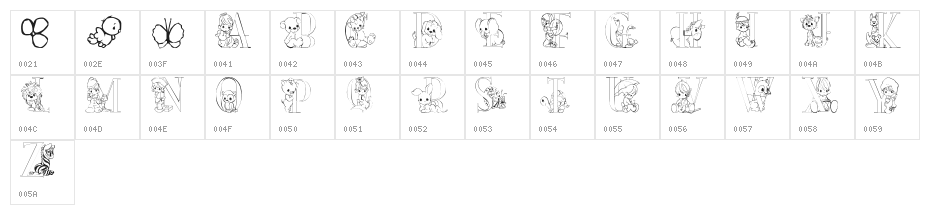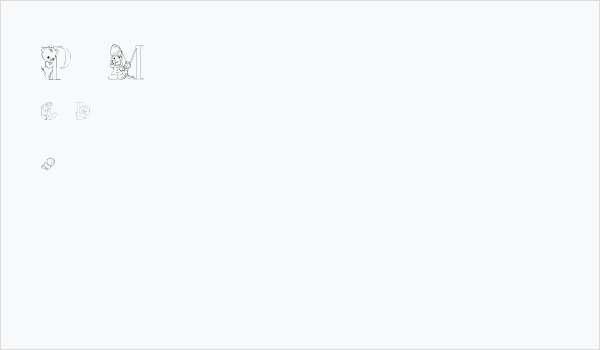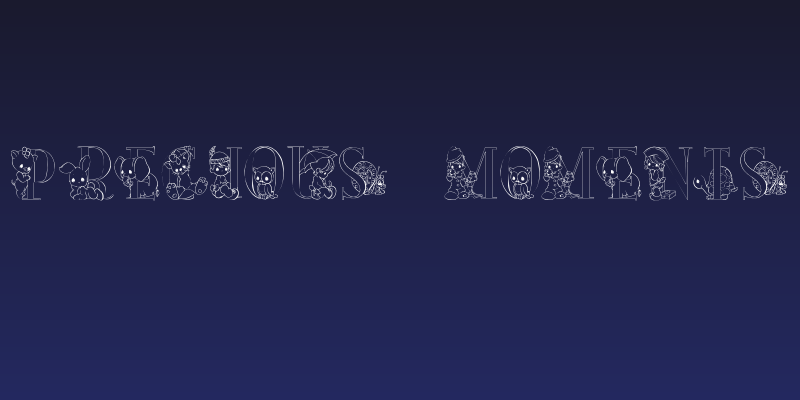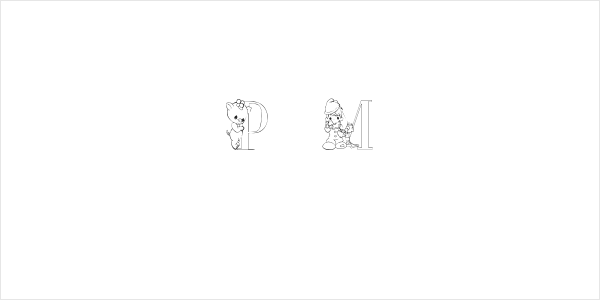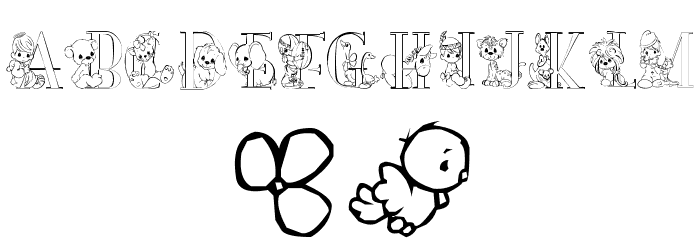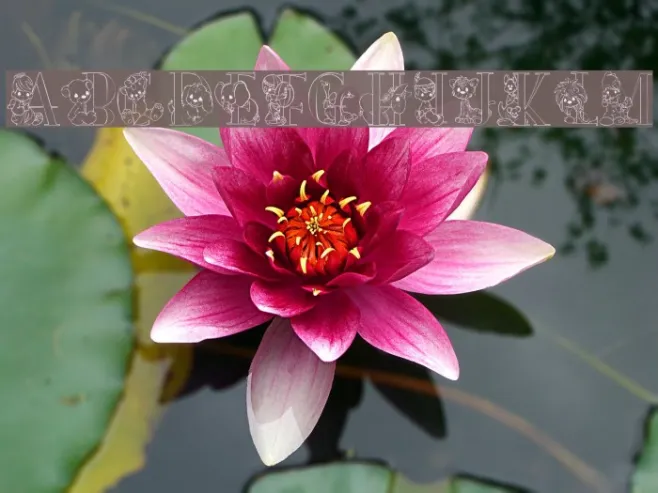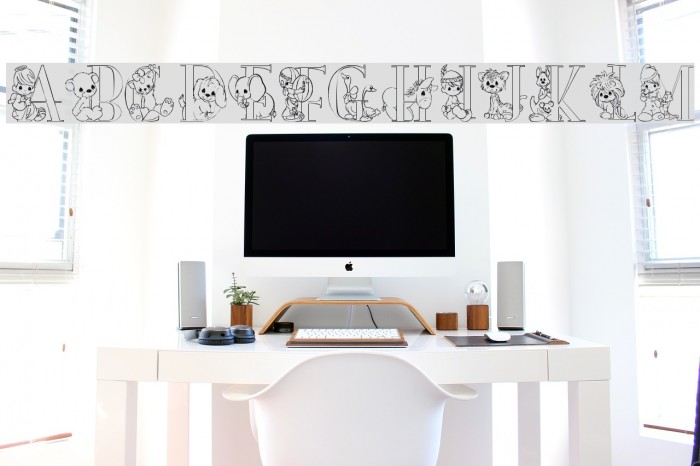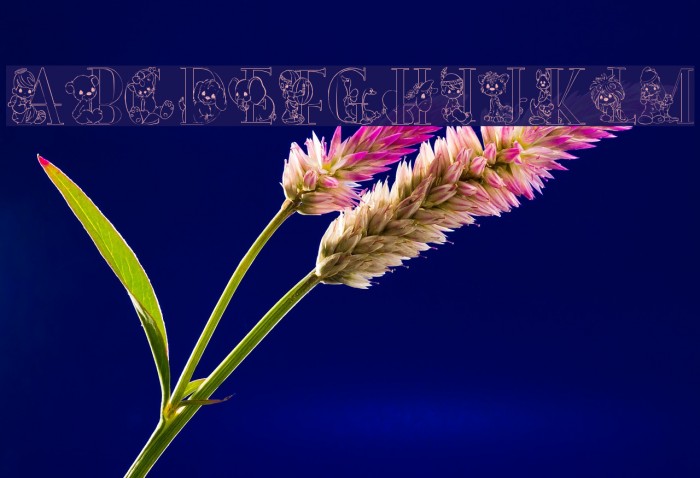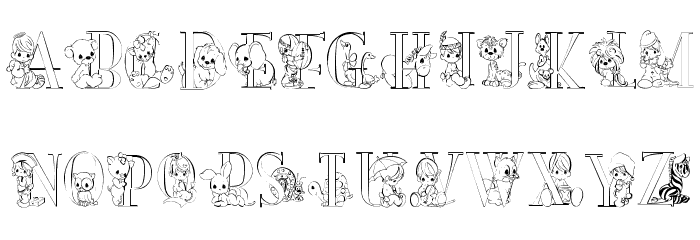
Precious Moments Font
Precious Moments Description
This whimsical and playful font features charming illustrations integrated into each letter, creating a delightful and engaging visual experience. Each character is adorned with adorable, cartoon-like figures that add a touch of innocence and joy. The font maintains a consistent line weight, ensuring readability while allowing the illustrations to shine. The overall design is light-hearted and perfect for projects that aim to evoke a sense of nostalgia or childhood wonder. The characters are well-spaced, providing a balanced and harmonious look.
| Overall Style | Whimsical |
| Proposed Projects | Ideal for children's books, playful invitations, greeting cards, and educational materials. |